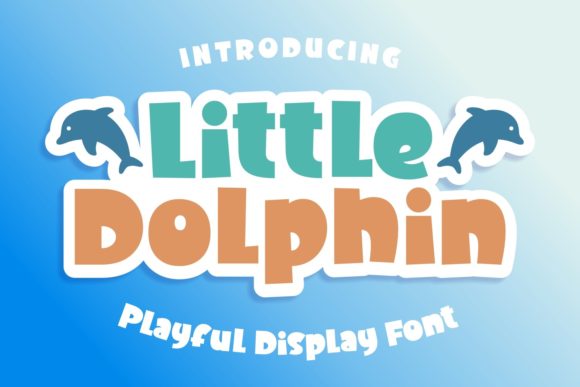
Step into an enchanting realm of imagination, where vibrant tales come alive and your designs dance with delight. Little Dolphin Font, a whimsical display font, beckons you to dive into a sea of creativity. With its playful personality, this font is sure to make waves in your projects, adding a ripple of joy and wonder to every word you write.
Little Dolphin's bold and stocky letters stand tall, brimming with character and energy. Each letter is like a tiny dolphin, leaping and frolicking across the page, creating a sense of movement and活力. The font's playful nature is nothing short of infectious, ready to elevate your designs to new heights.
Dive into the depths of Little Dolphin's charm and discover a treasure trove of possibilities. Let your imagination soar as you explore the endless ways to make your designs sparkle with delight. Whether you're crafting eye-catching posters, designing lively logos, or adding a touch of whimsy to your social media posts, Little Dolphin is your trusty sidekick, ready to turn your ideas into masterpieces.
But it's not just about aesthetics. Little Dolphin is also remarkably versatile, adapting seamlessly to a myriad of design styles. Its bold presence lends itself perfectly to headlines and titles, demanding attention with authority. Yet, its playful charm shines through even in smaller text, adding a touch of lightheartedness to your creations.
In addition to the main font, Little Dolphin comes with a delightful assortment of small dolphin elements, ready to add an extra splash of magic to your designs. These charming accents are perfect for adding a touch of whimsy to illustrations, invitations, and any other creative project that calls for a sprinkle of fun.
So, set sail on an adventure with Little Dolphin Font, and let your designs make a splash. With its playful nature and boundless versatility, this font will transform your projects into captivating works of art, leaving a lasting impression on all who encounter them. Embrace the magic of Little Dolphin and let your creativity shine brighter than ever before.